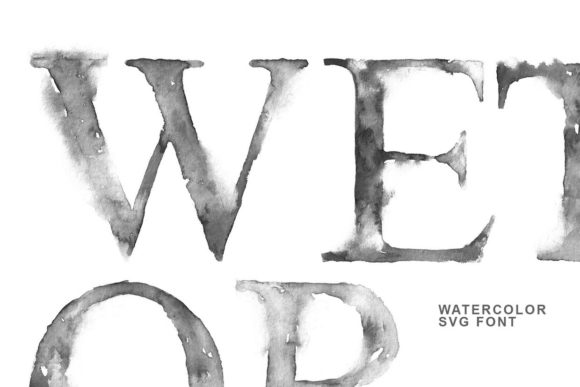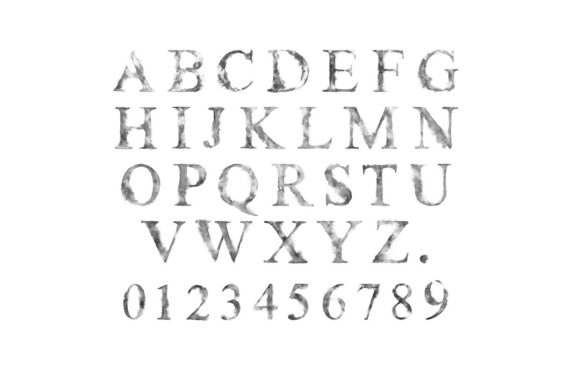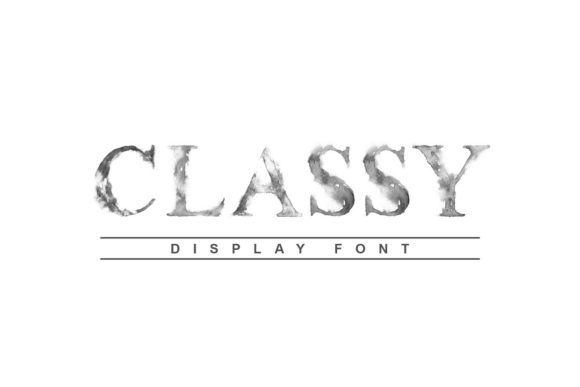
Introduction to Romsky Watercolor Font
Have you ever been in the middle of a creative project, pouring your heart and soul into a design, when you stumble upon the perfect design resource? It’s like a breath of fresh air, a spark that ignites your imagination and takes your work to the next level. For designers, finding that elusive design element can be the difference between a good project and a great one.
That’s exactly what the Romsky Watercolor Font offers. This stunning SVG font is designed to evoke a sense of natural beauty, with its unique blend of faded textures and transparent backgrounds. Whether you’re working on a free download project or a high-end design, this font is sure to add a touch of elegance and sophistication.
Key Features of Romsky Watercolor Font
- Unique watercolor design: This font features a beautiful, hand-painted style that adds a touch of elegance to any creative project.
- High-quality design resource: The Romsky Watercolor Font is a high-quality design resource that is perfect for designers and artists looking to add a personal touch to their work.
- Transparent background: This font features a transparent background, making it easy to place over any image or design without worrying about a white background.
- Perfect for creative projects: The Romsky Watercolor Font is perfect for use in creative projects such as wedding invitations, birthday cards, and other special occasion designs.
- High-resolution design: The font is available in high-resolution, making it perfect for use in large-scale designs such as billboards and posters.
Honest Review: Romsky Watercolor Font
I recently stumbled upon the Romsky Watercolor Font, and I must say it’s a delightful addition to any creative project. This free download is perfect for designers who want to add a touch of whimsy and elegance to their work. With its transparent background, it’s incredibly versatile and can be easily layered with other design elements.
What works well about the Romsky Watercolor Font is its high-quality design. The subtle watercolor effect is beautifully executed, and the font’s lines are smooth and precise. I love using it for quotes, headings, and even as a decorative element in my designs. ✨
However, there are a few limitations to consider. The font is not suitable for large blocks of text, as the watercolor effect can become overwhelming. Additionally, the font may not be compatible with all design software, so be sure to check compatibility before using it in your project. ⚠️
Overall, I’m impressed with the Romsky Watercolor Font. It’s a fantastic design resource that adds a unique touch to any creative project. I highly recommend it for designers who want to experiment with something new and exciting.
- Perfect for quotes, headings, and decorative elements
To get the most out of Romsky Watercolor Font, experiment with different font sizes, colors, and combinations to find the perfect look for your design. This font is perfect for creating a unique and creative visual identity for your brand or project.
Romsky Watercolor Font is ideal for a variety of creative projects, including invitations, social media graphics, and branding materials. Its high-quality design and transparent background make it a versatile and useful design resource for any creative project.